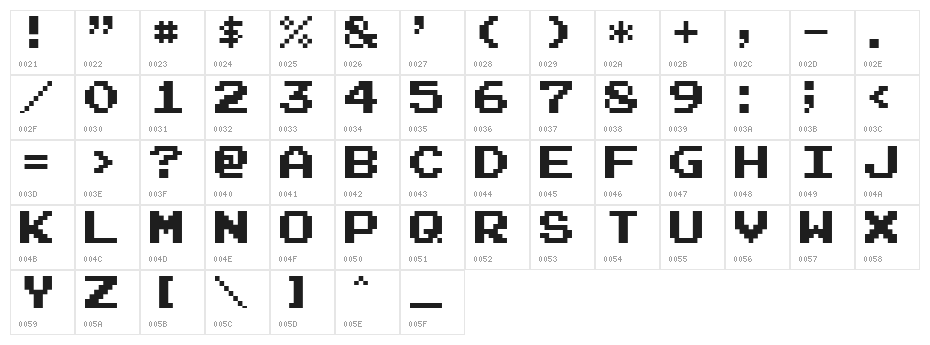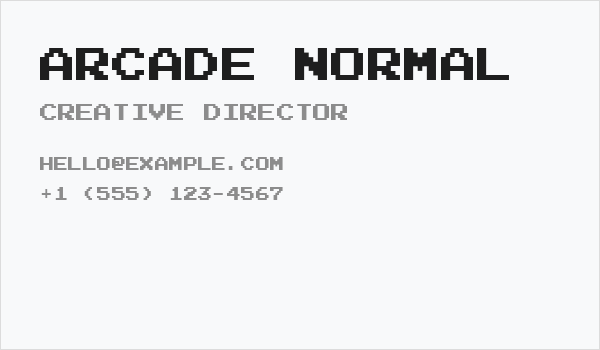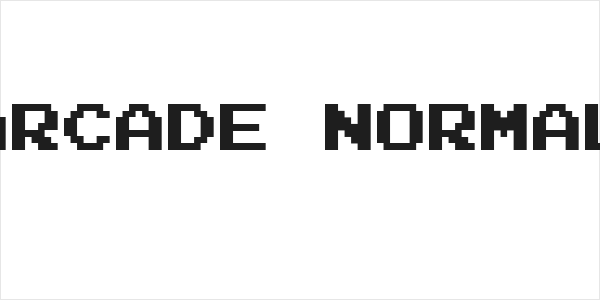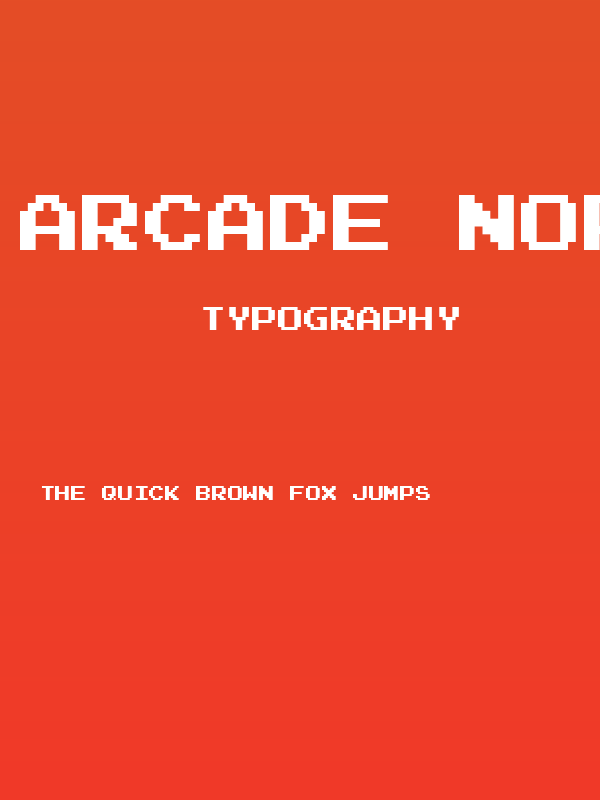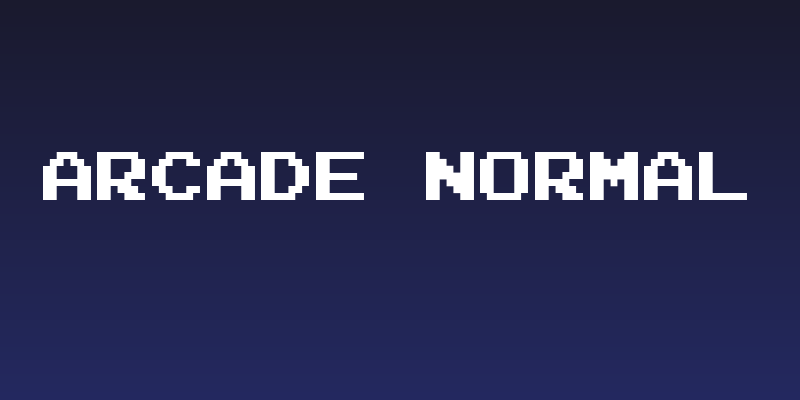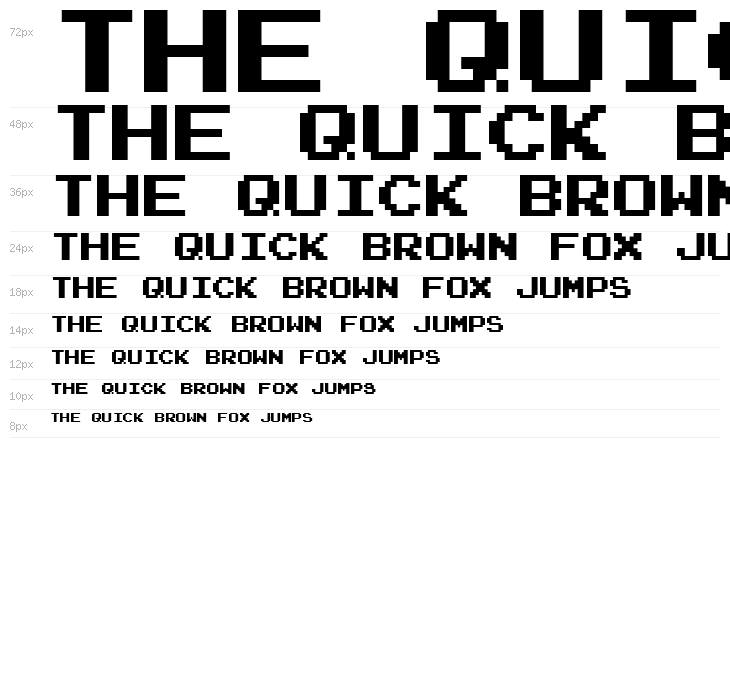
Arcade Normal Font
Arcade Normal Description
This font is a pixelated, retro-style typeface reminiscent of classic arcade games from the 1980s. Each character is constructed with a blocky, grid-like appearance, giving it a distinctly digital and nostalgic feel. The uppercase and lowercase letters maintain a consistent height, contributing to a uniform look across the text. The numerals and special characters follow the same pixelated design, ensuring a cohesive aesthetic. This font is ideal for projects that aim to evoke a sense of nostalgia or pay homage to vintage video game culture.
| Use Case | Headlines, Logos, Digital Art |
| Proposed Projects | Ideal for retro video game designs, nostalgic posters, themed event invitations, and digital art projects. |